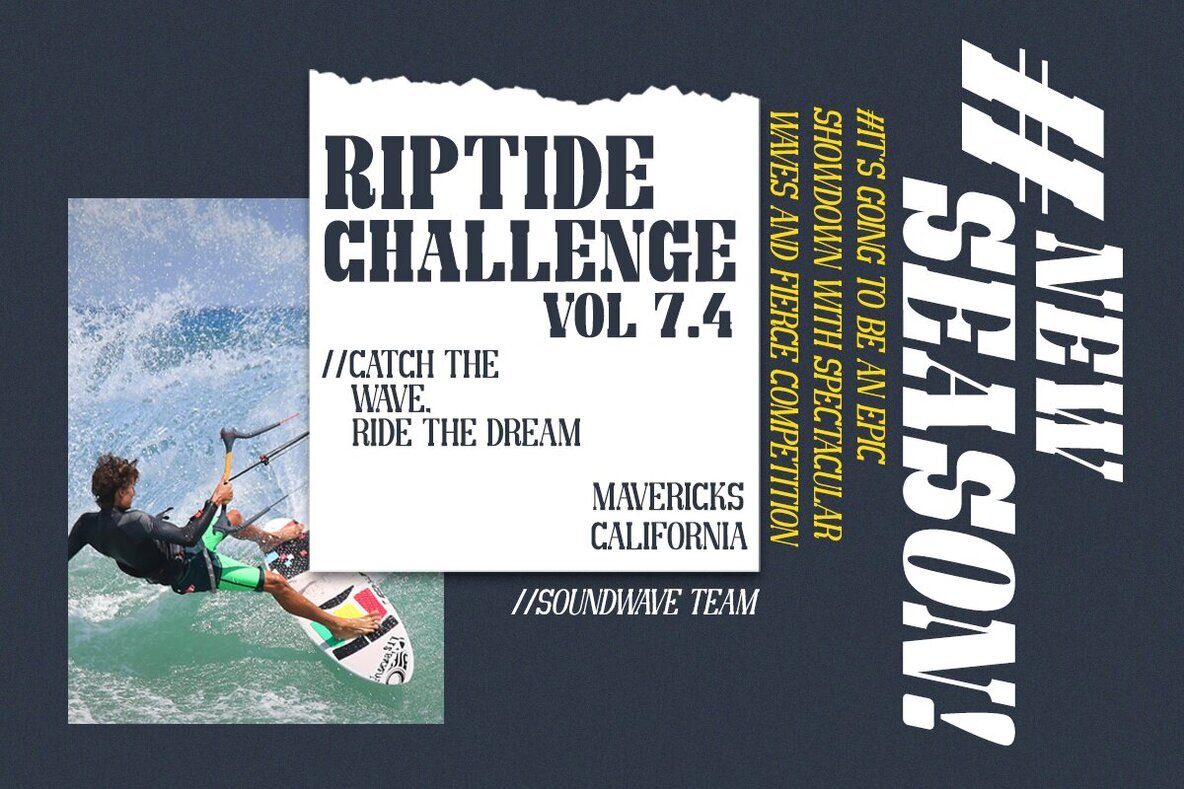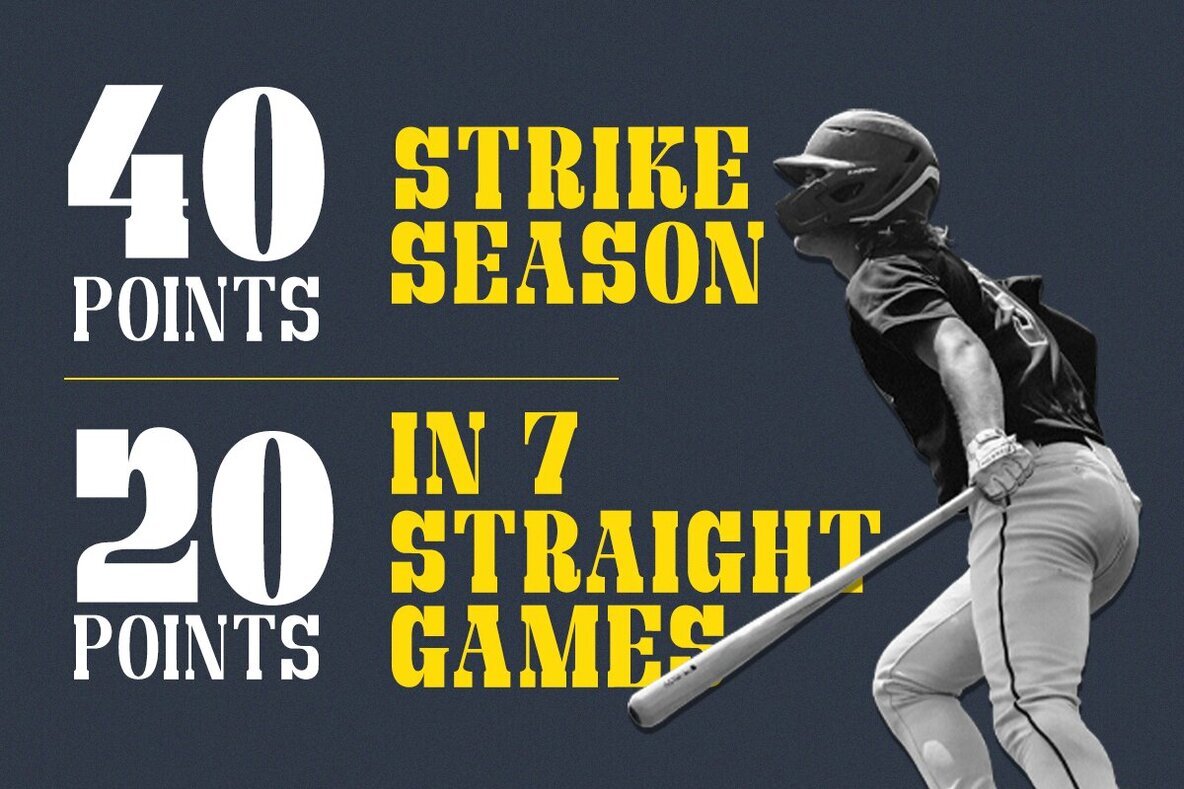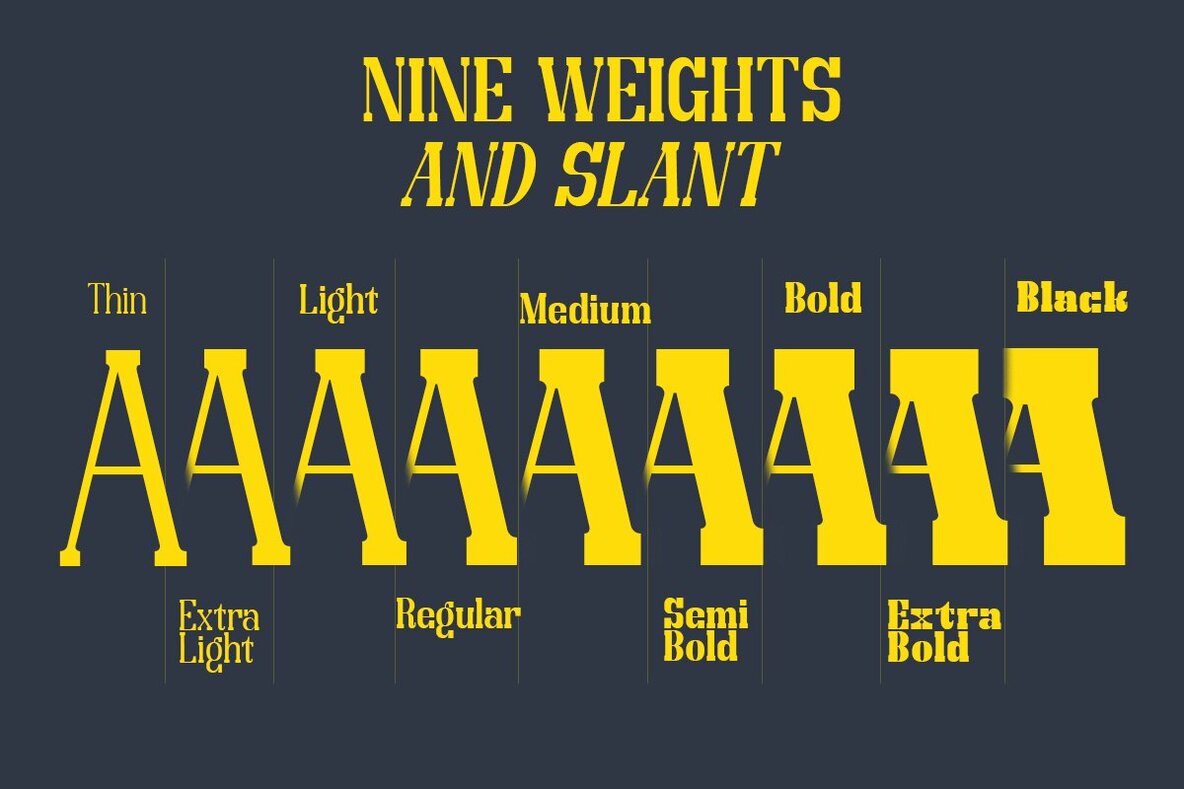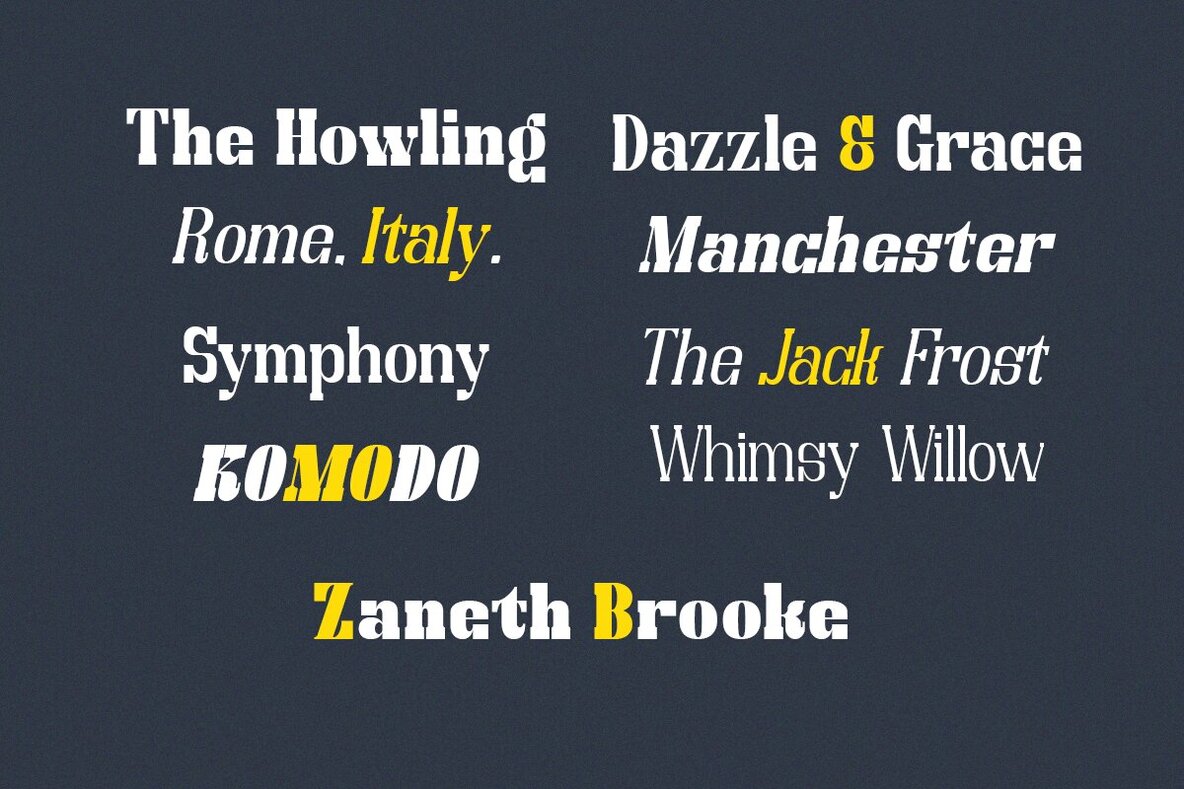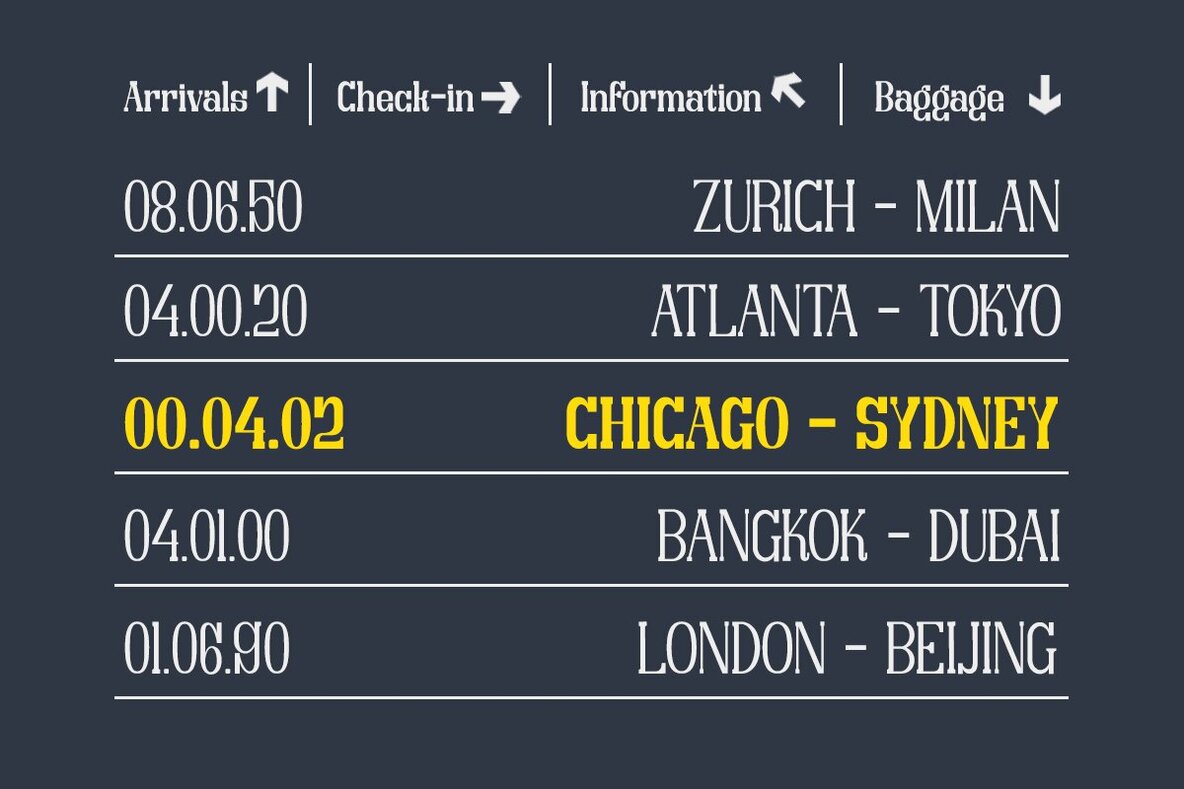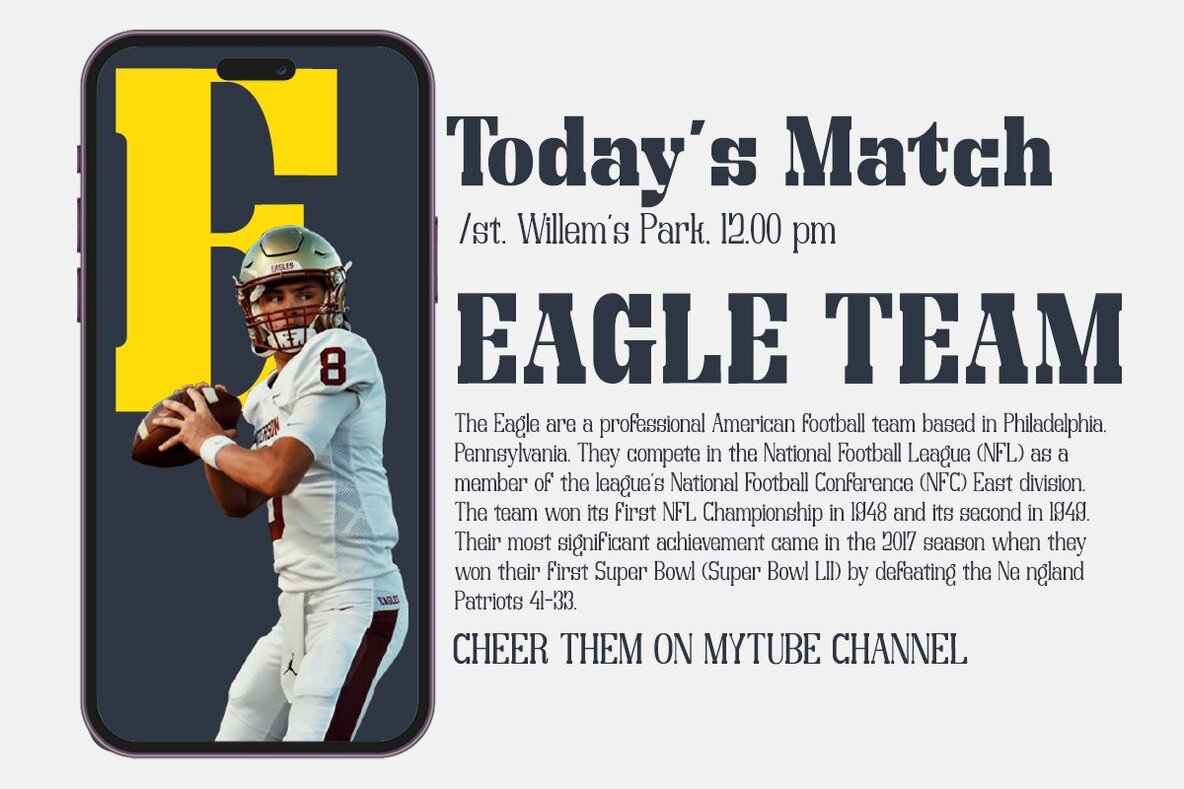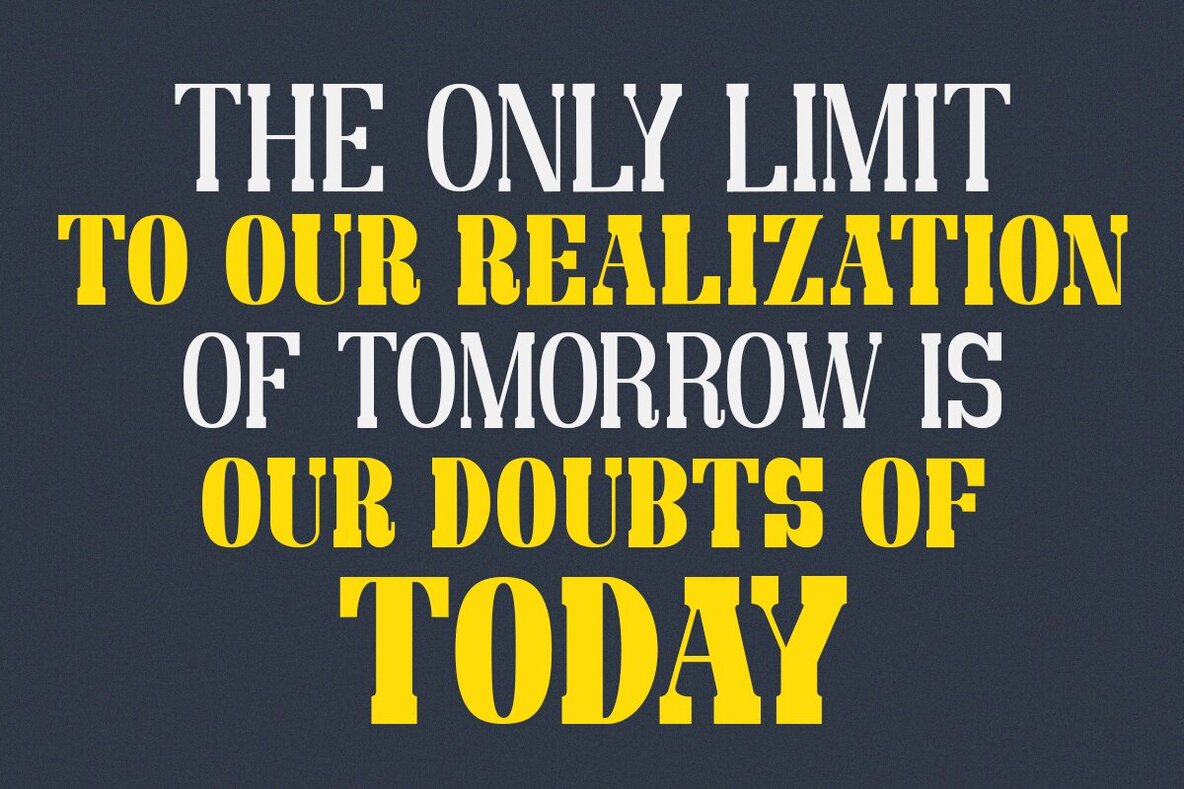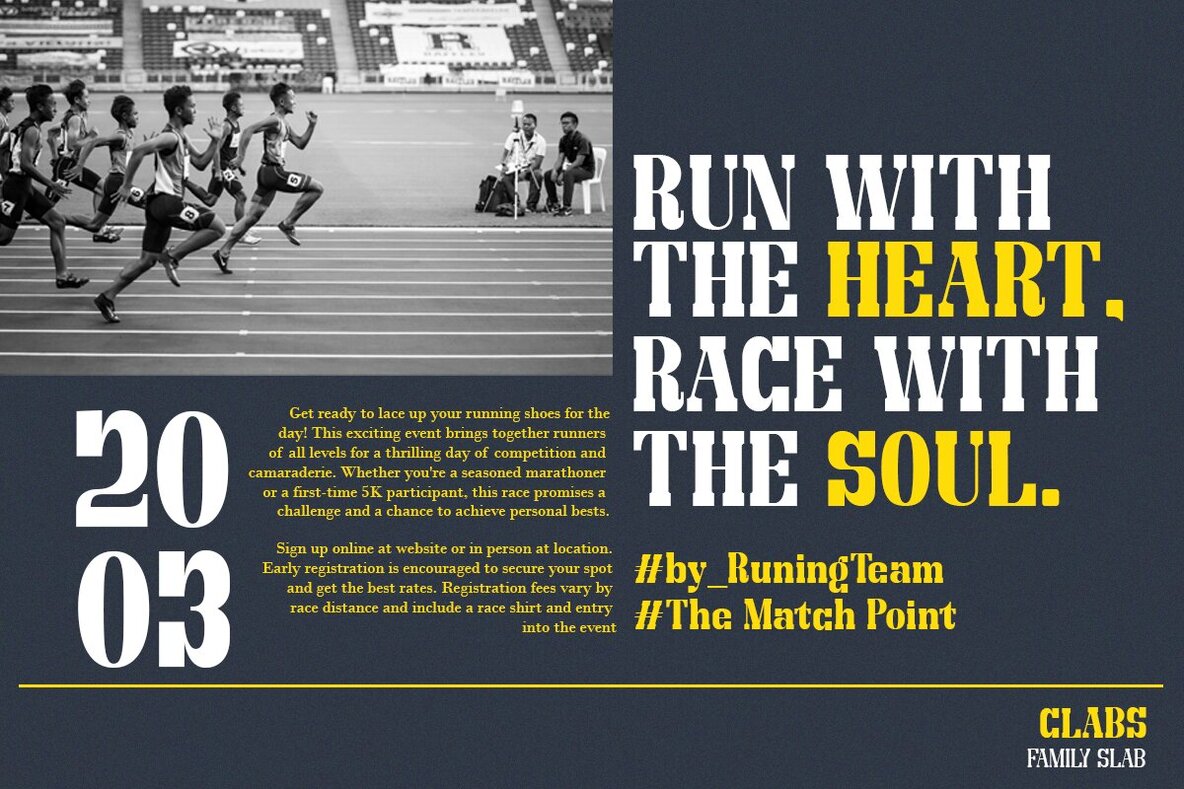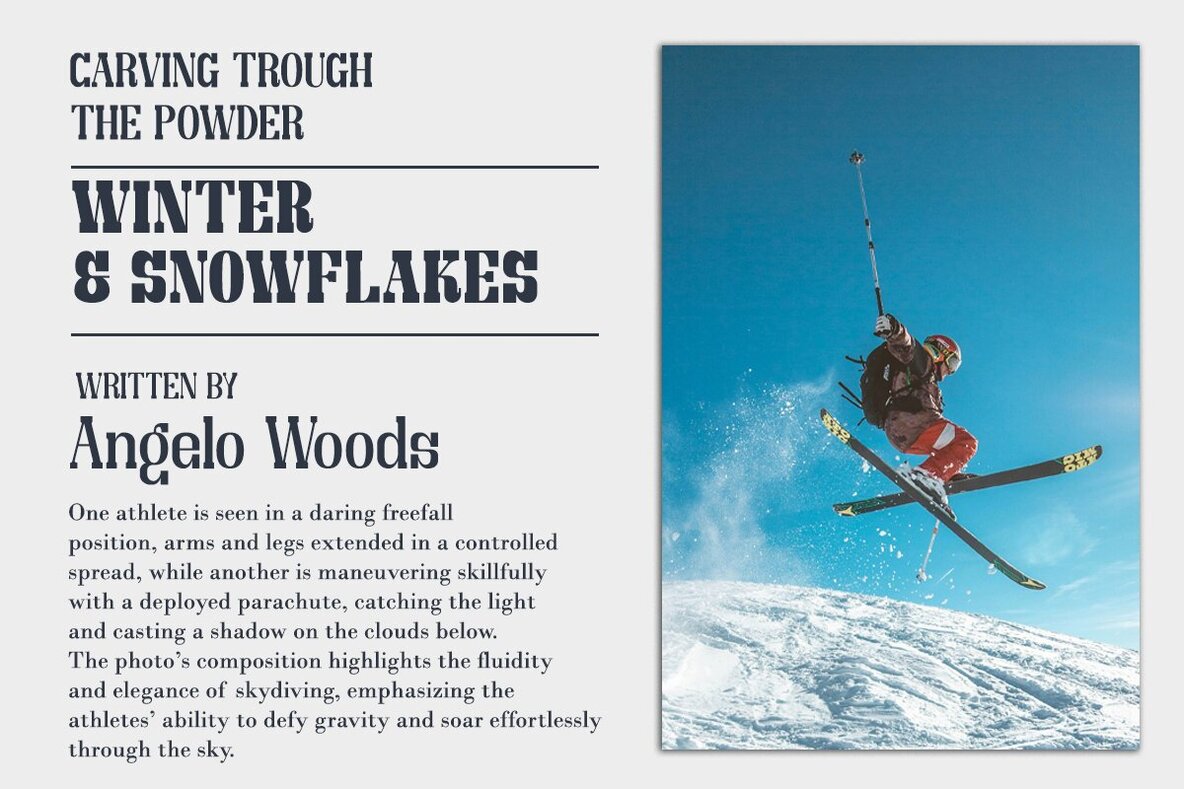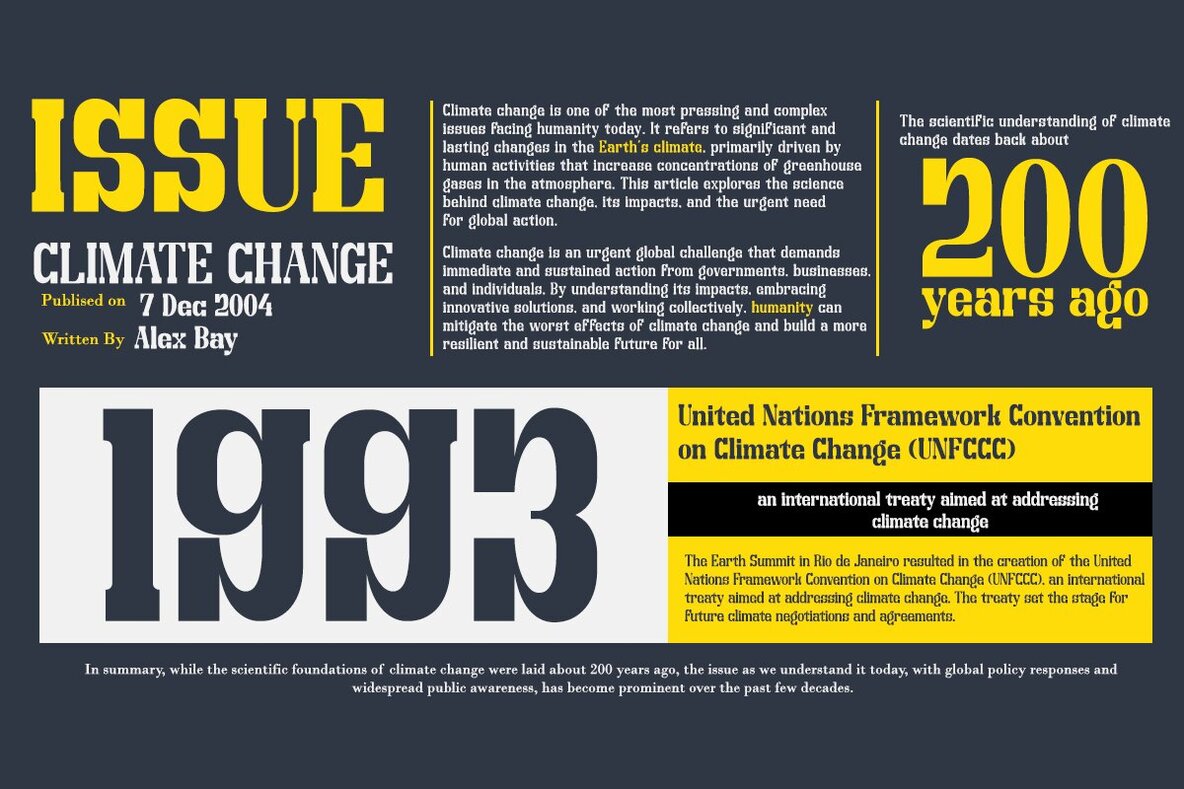
Clabs Font
Clabs is a versatile slab serif font family crafted for impactful branding. Featuring a comprehensive range of 9 weights from Thin to Black, each with corresponding italics, Clabs offers bold, chunky characters seamlessly paired with delicate strokes to produce distinctive visuals. Its design is well-suited for creating compelling statement headlines. The font's low contrast strokes, short ascenders, and descenders, along with low caps, contribute to its vintage, rugged aesthetic, making it perfect for a variety of design projects such as logos, clothing branding, magazine headers, and newspaper layouts.